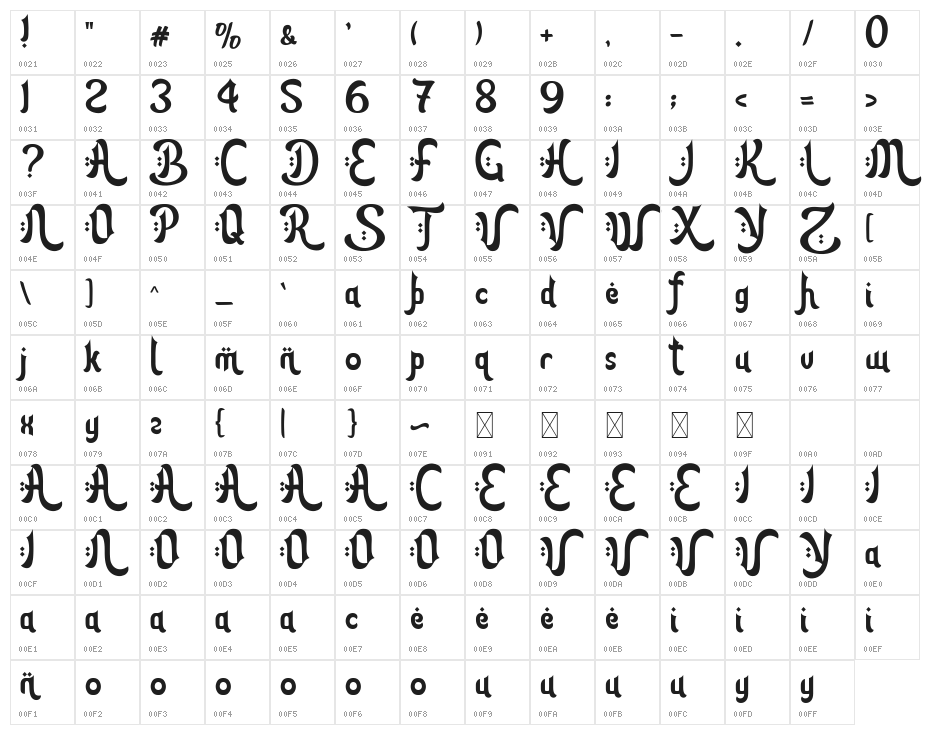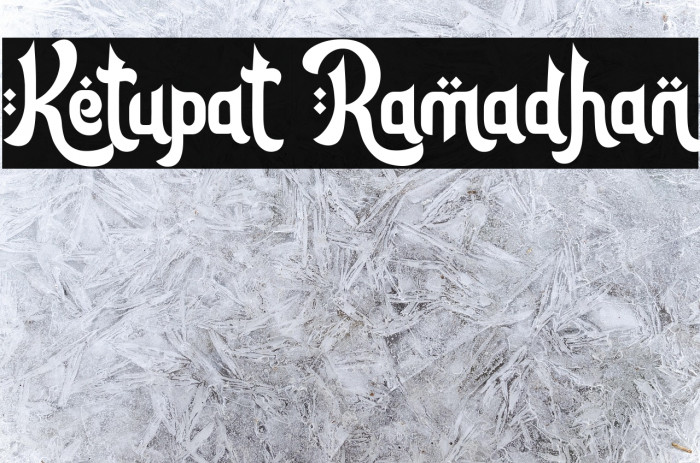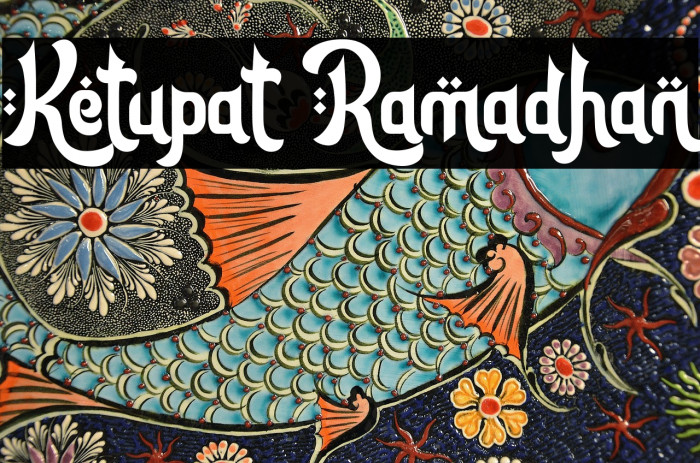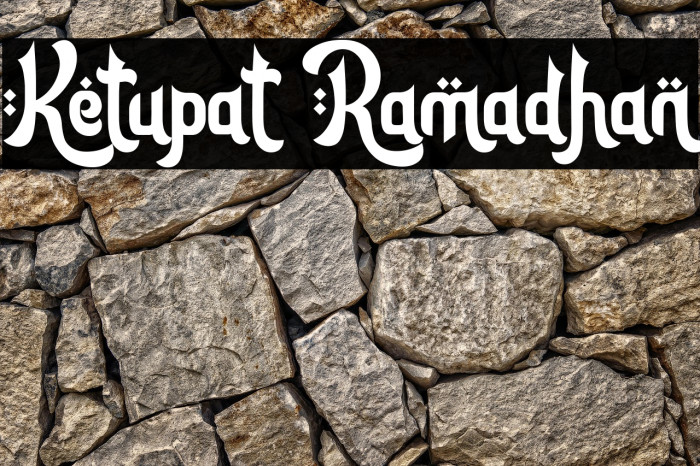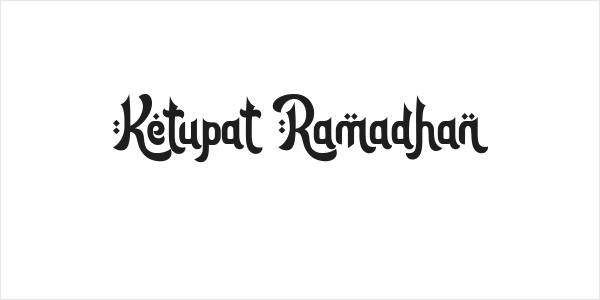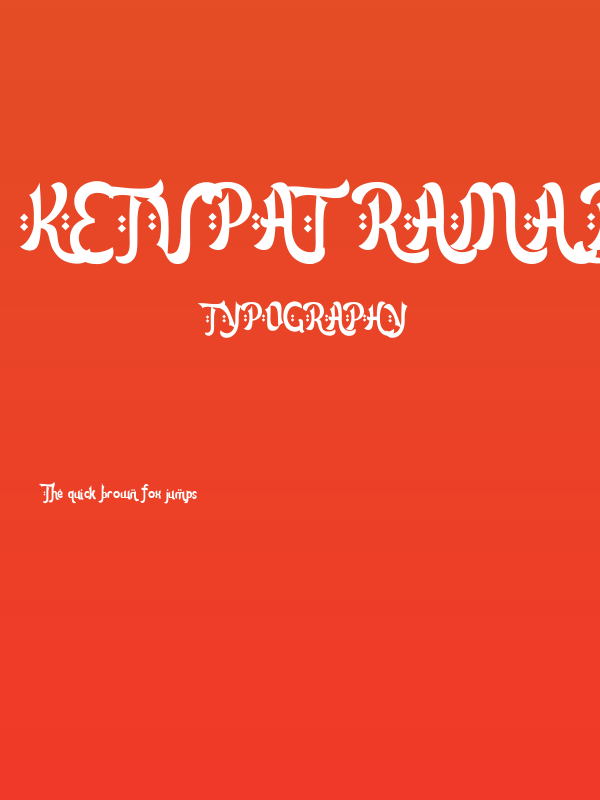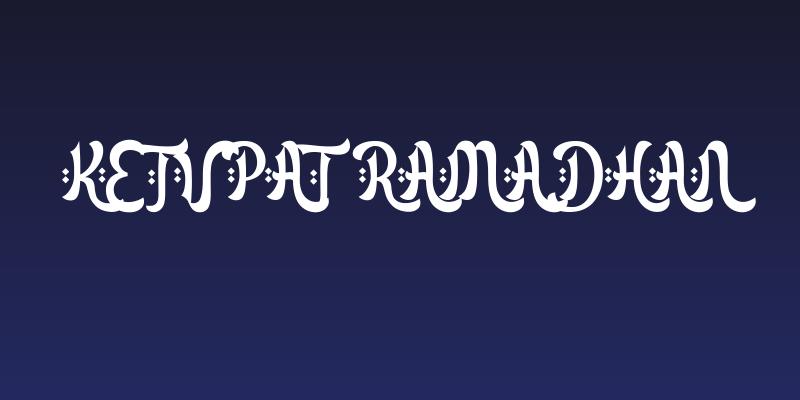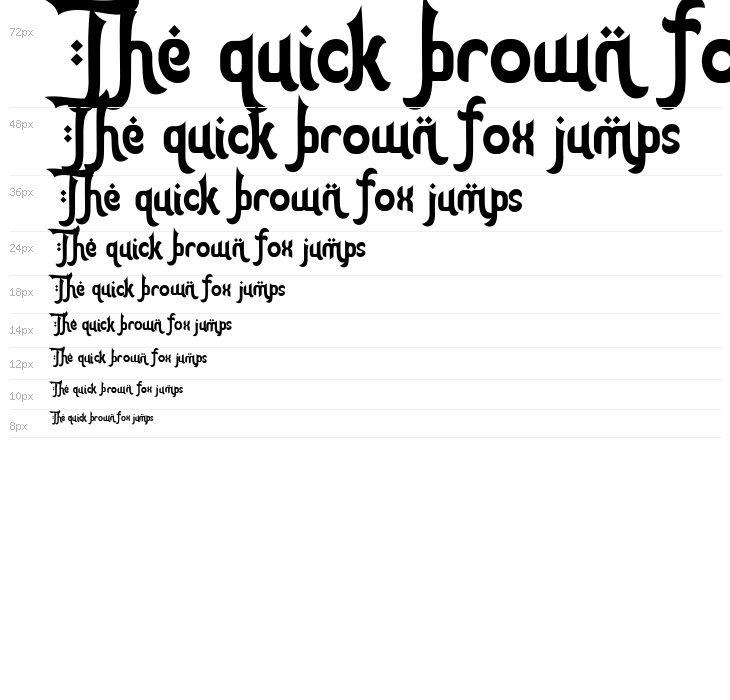
Ketupat Ramadhan Font
Ketupat Ramadhan Description
This font features a unique and decorative style, characterized by its bold and artistic letterforms. The uppercase letters are embellished with intricate details, resembling traditional motifs, which add a cultural and festive touch. The lowercase letters maintain a consistent style, with smooth curves and a slightly condensed form. The numerals are bold and clear, ensuring readability while maintaining the decorative theme. Special characters are creatively designed, complementing the overall aesthetic. This font's distinct style makes it suitable for projects that require a cultural or festive flair.
Proposed ProjectsIdeal for cultural event posters, festive invitations, branding for traditional products, and artistic projects.